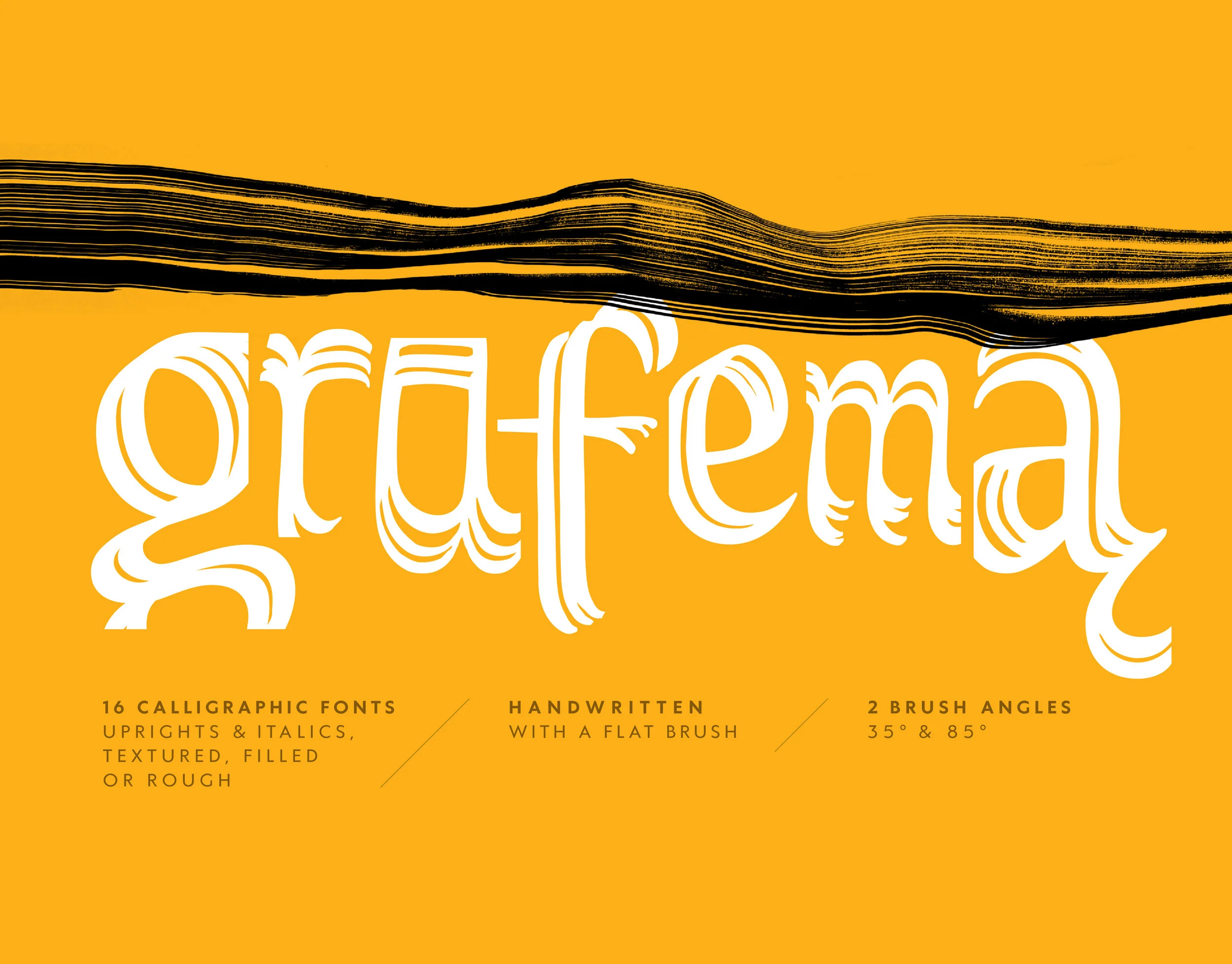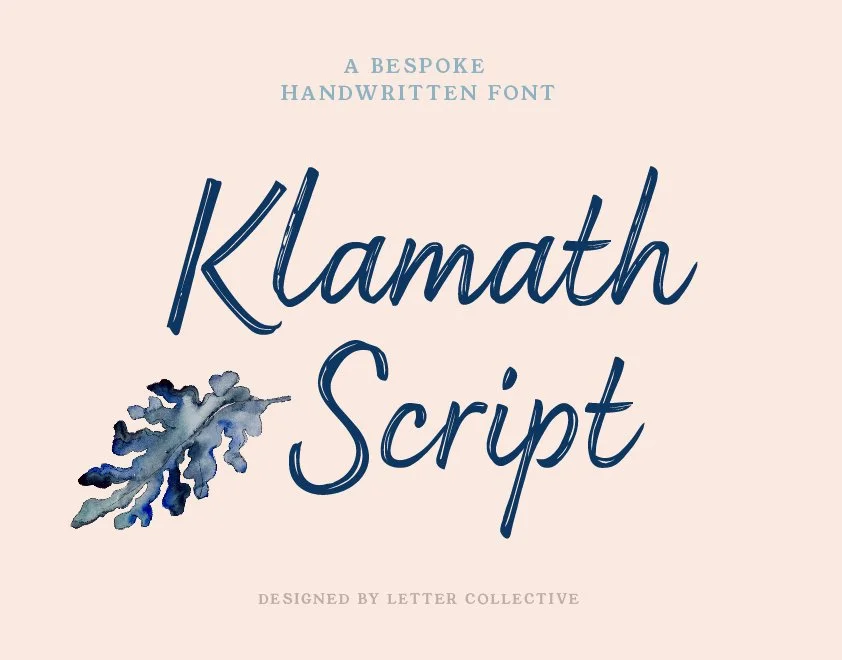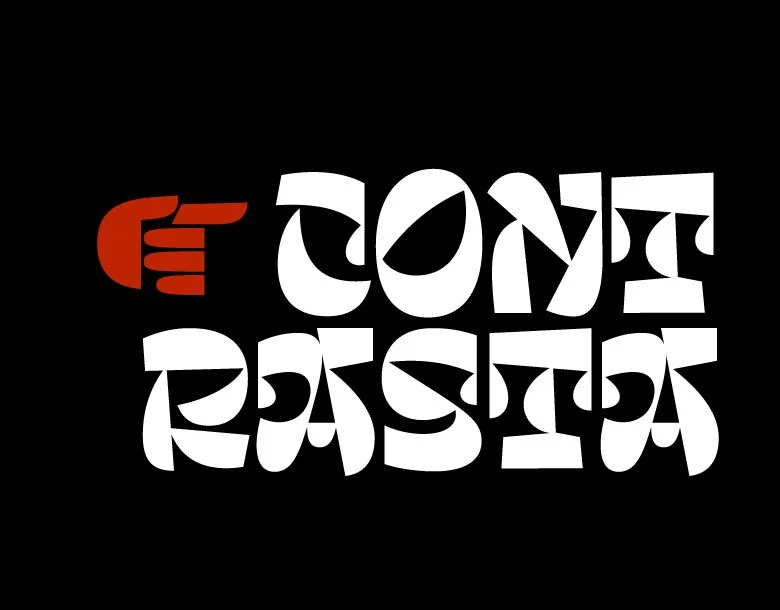
Klamath Script
custom handwritten font
Contrasta
Contrasta is a contemporary display face with a vast amount of alternates & ligatures intended to mimic custom lettering. Designed by Todor Georgiev in the period 2020–2024.
Grafema LC
font family
Laptev Brush
Everybody
Everybody (is free) – an open source display face with two extreme widths in one package. Features basic Latin and Bulgarian Cyrillic. Built by Todor Georgiev for 48 hours Varusha South festival.